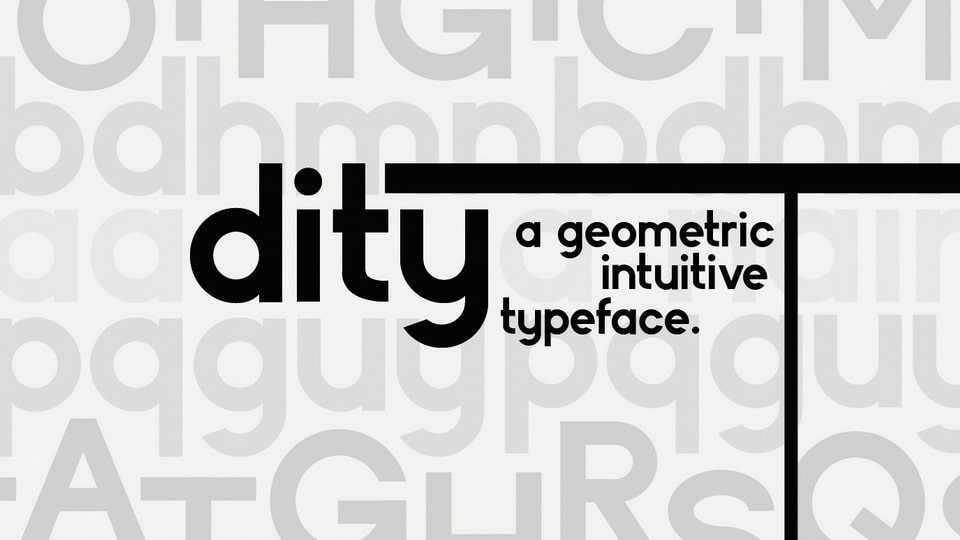
Download Dity font, a geometric intuitive sans serif typeface with a humanist touch that creates a modern and clean appearance based on a classic vibe. Dity is perfect for short text settings, brands, headlines or signage systems.